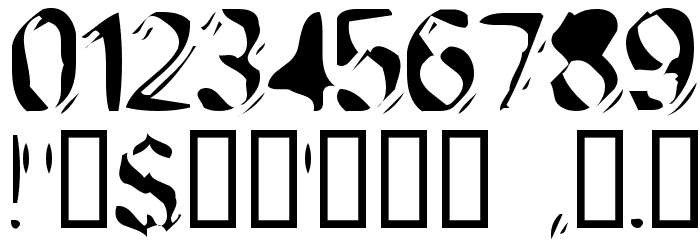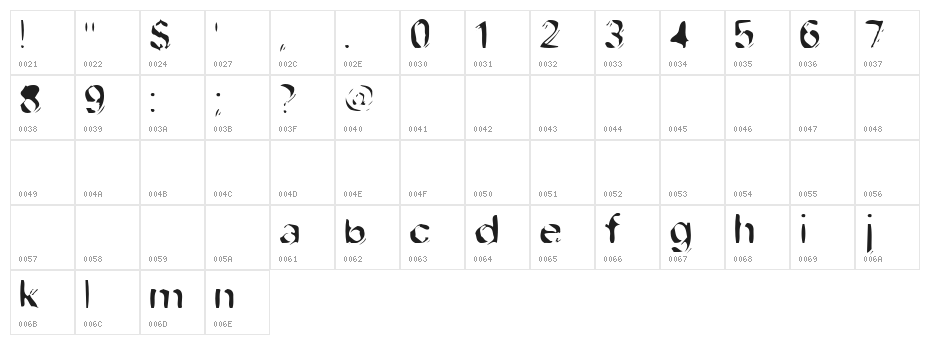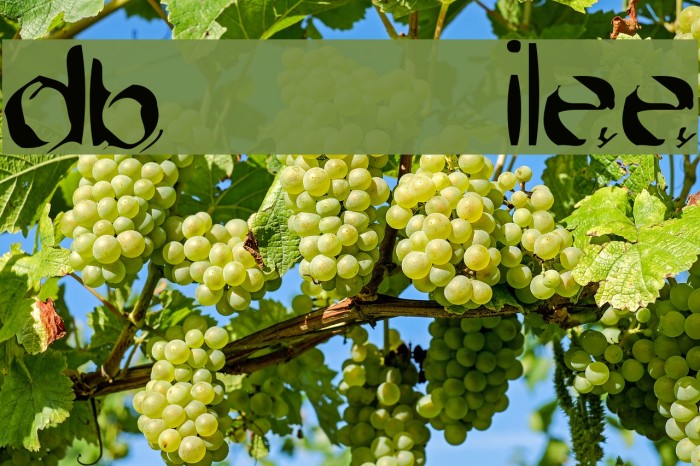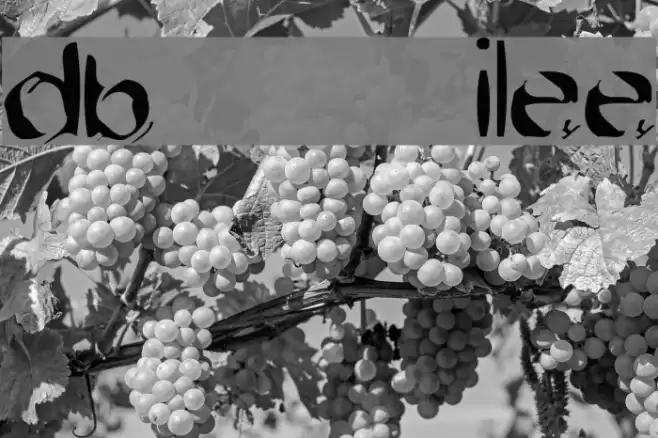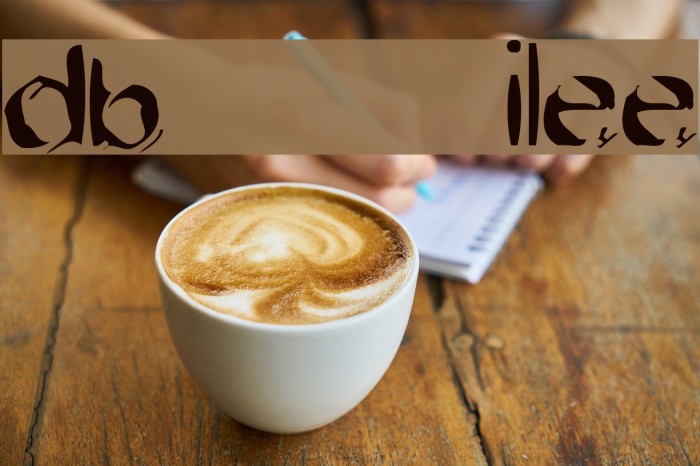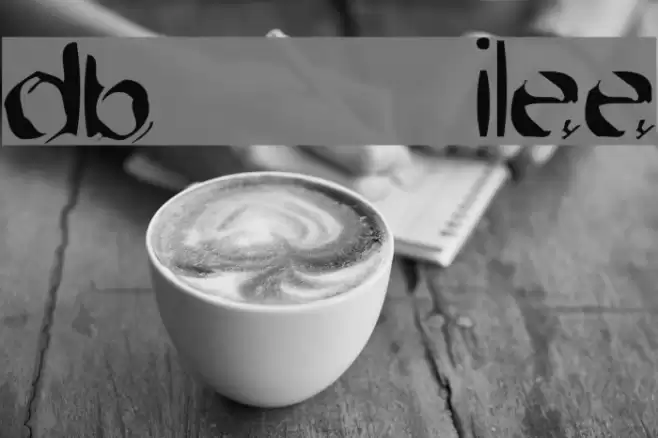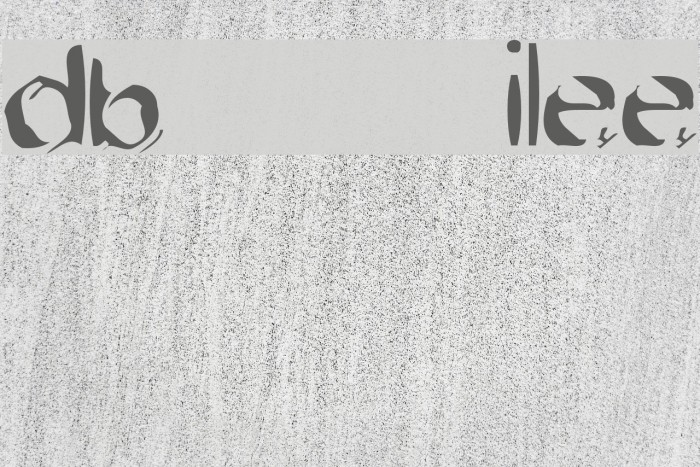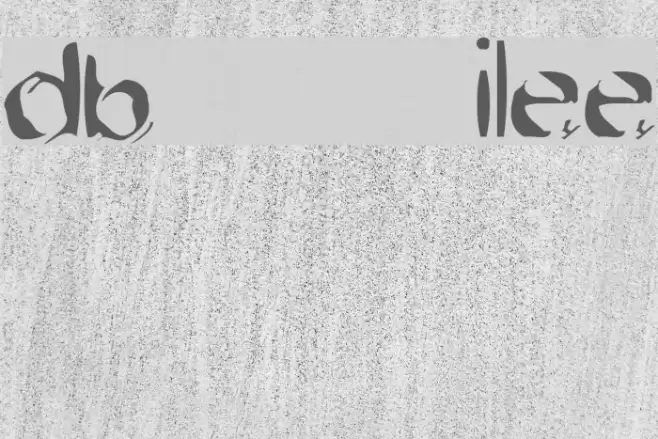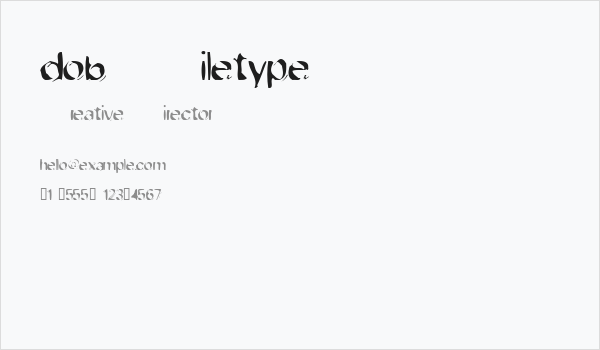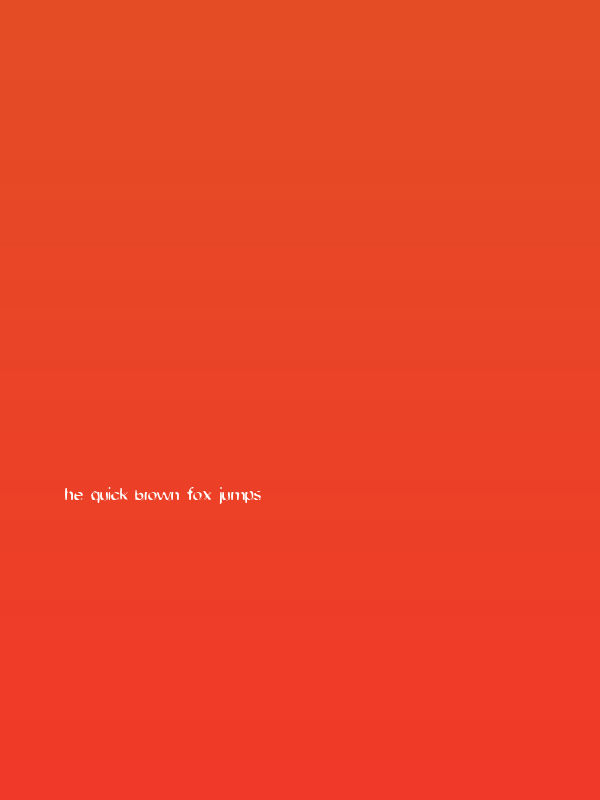
dob Filetype Font
dob Filetype Description
This font features a bold and dynamic style with a distinct brush-like appearance. The characters are crafted with sharp, angular strokes that give a sense of movement and energy. Each letter has a unique, artistic flair, with varying thickness in the strokes that create a high contrast effect. The font maintains a consistent baseline, but the individual character shapes are irregular, adding to its decorative appeal. The numbers and special characters follow the same stylistic approach, ensuring a cohesive look across all glyphs. This font is ideal for projects that require a bold statement and a touch of creativity.